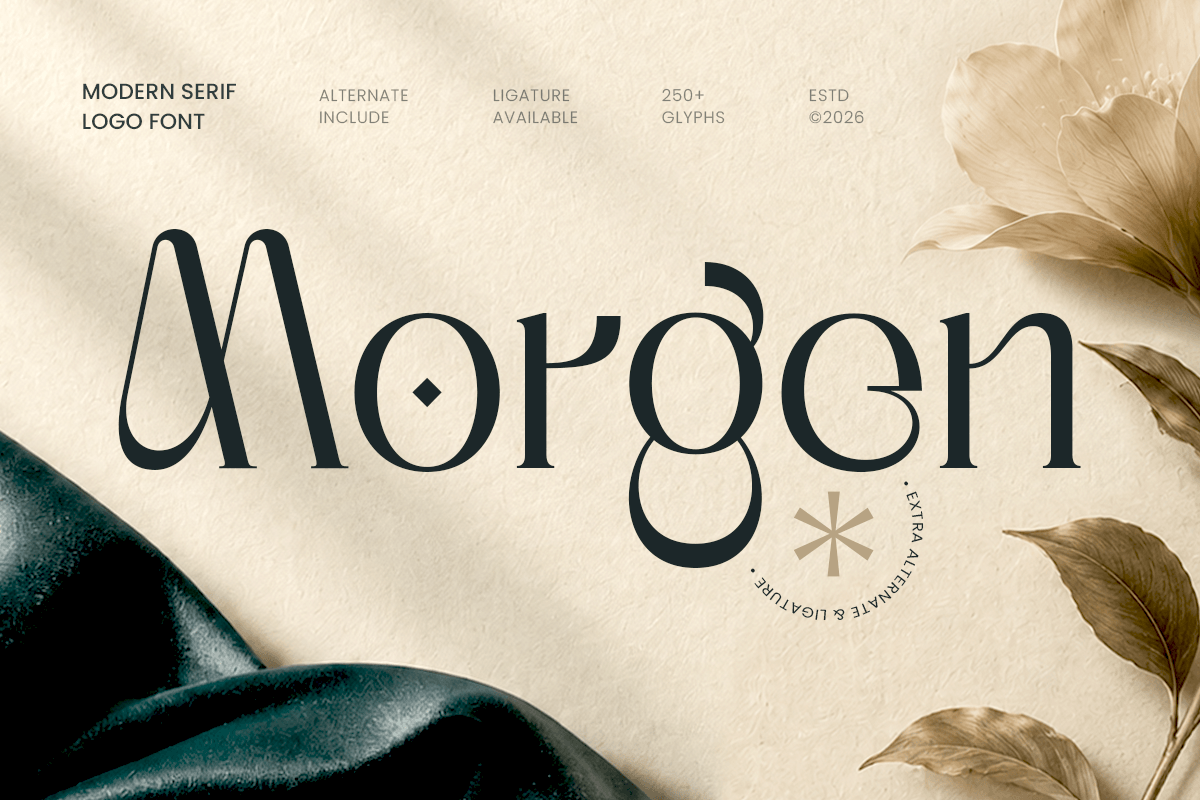
Morgen
-Luxury ElegantMorgen – Luxury Elegant
MORGEN is a luxury elegant font crafted to bring sophistication, exclusivity, and timeless beauty to modern design projects. With its refined details, graceful letterforms, and premium visual character, MORGEN creates a high-end impression for brands that seek a stylish and memorable identity.
Perfect for luxury branding, fashion labels, beauty products, boutique logos, editorial layouts, wedding invitations, and premium packaging, MORGEN adds a polished and sophisticated touch to every composition. Its elegant structure allows designers to create visuals that feel both contemporary and classic.
Designed for creatives who value simplicity and refinement, MORGEN delivers a versatile typographic experience across digital and print applications. From luxury campaigns to personal branding, this elegant display font helps transform ordinary layouts into premium visual statements.
MORGEN – Luxury Elegant Features
Elegant luxury-inspired letterforms
Refined style with a premium aesthetic
Perfect for fashion, beauty, and high-end branding
Ideal for logos, packaging, invitations, and editorial designs
Works beautifully for print and digital projects
Clean modern design with timeless appeal
OpenType features for creative flexibility